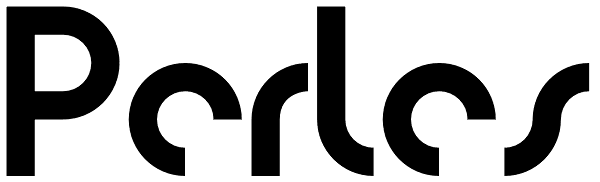
Perles
Perles ignores all important typographic acutenesses in order to represent a consistently geometrical typeface. Nevertheless it communicates a lot of fun and is suitable in particular for providing trademarks.
Perles Font